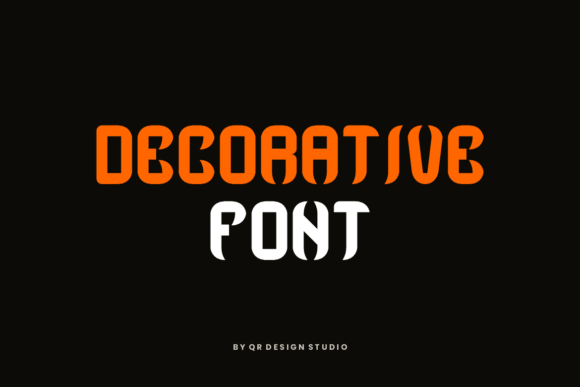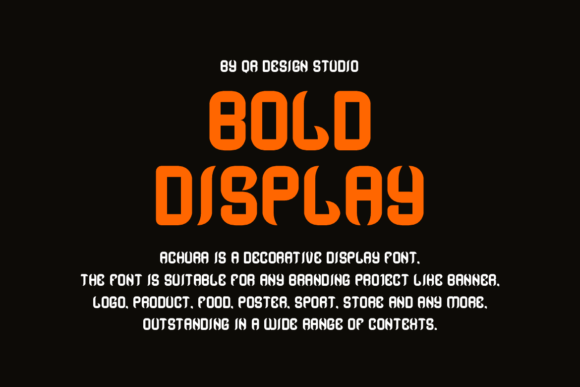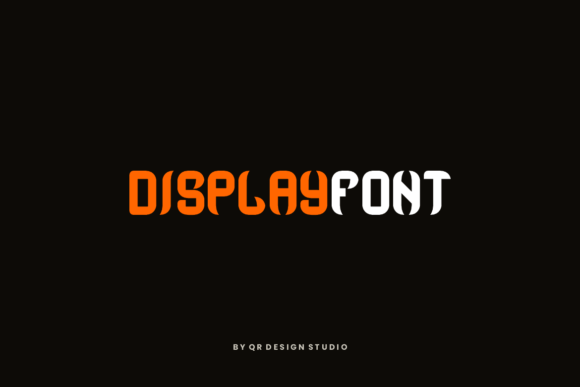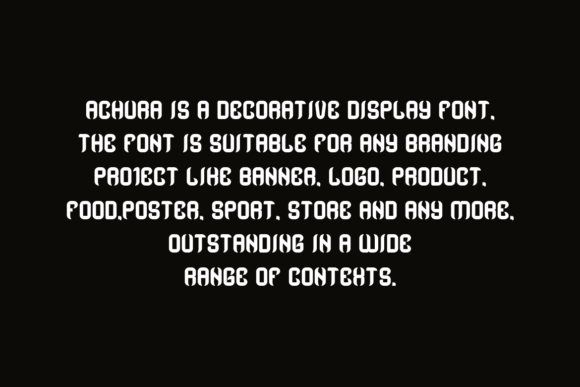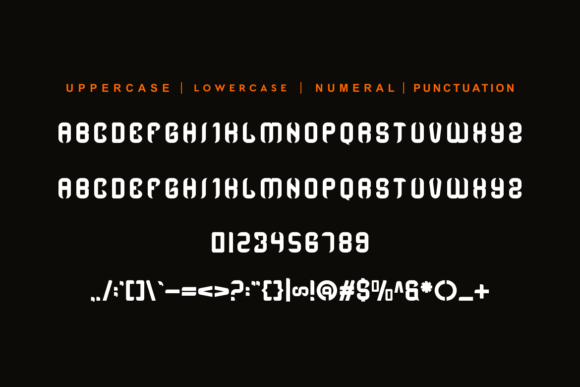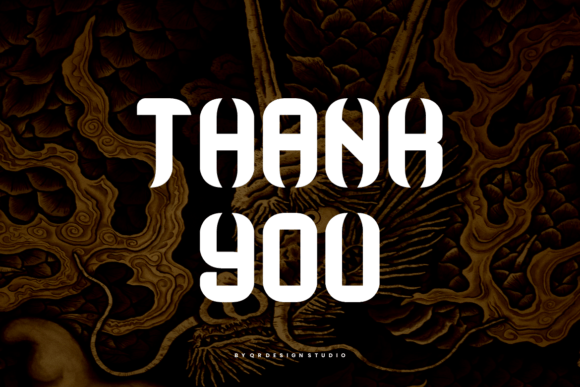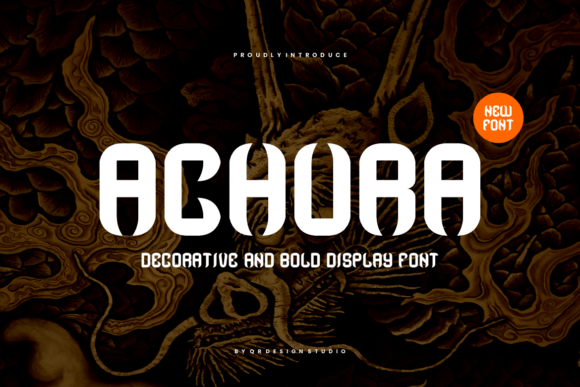
Achura Font: The Bold and Authentic Decorative Font for Your Branding Projects
In the world of typography, fonts play a crucial role in creating a lasting impression on the audience. When it comes to branding projects, a well-designed font can make all the difference. Achura Font is one such bold and authentic decorative font that has gained popularity among designers and crafters. In this article, we’ll explore the features and benefits of Achura Font and why it’s an excellent choice for your branding projects.
What is Achura Font?
Achura Font is a decorative font designed to add a touch of boldness and authenticity to your branding projects. Its unique and stylish design makes it perfect for creating logos, sport-related designs, and other visual elements that require a strong and impactful font. The font’s bold and authentic look is sure to grab attention and leave a lasting impression on your audience.
Key Features of Achura Font
- Bold and Authentic Design: Achura Font boasts a bold and authentic design that sets it apart from other fonts. Its unique style is perfect for creating eye-catching logos, titles, and headings.
- Suitable for Various Branding Projects: Achura Font is versatile and can be used for a wide range of branding projects, including logos, sports designs, and more.
- High-Quality Typography: The font features high-quality typography, ensuring that your designs look professional and polished.
- Easily Readable: Despite its bold design, Achura Font is easily readable, making it perfect for use in various contexts, from digital designs to print materials.
Benefits of Using Achura Font
Using Achura Font for your branding projects comes with several benefits. Here are a few:
- Stand Out from the Crowd: Achura Font’s unique design ensures that your branding projects stand out from the competition.
- Professional Look and Feel: The font’s high-quality typography and bold design give your designs a professional look and feel.
- Versatility: Achura Font can be used in various contexts, from digital designs to print materials, making it a versatile addition to your font collection.
- Time-Saving: With Achura Font, you can create stunning designs in no time, saving you time and effort.
Who Can Benefit from Achura Font?
Achura Font is perfect for:
- Graphic Designers: Graphic designers can use Achura Font to create stunning logos, brochures, and other visual elements for their clients.
- Crafters: Crafters can use Achura Font to add a personal touch to their craft projects, such as handmade cards, invitations, and more.
- Marketers: Marketers can use Achura Font to create eye-catching marketing materials, such as flyers, posters, and social media graphics.
- Small Business Owners: Small business owners can use Achura Font to create a strong brand identity and stand out from the competition.
How to Use Achura Font?
Using Achura Font is easy. Here are a few tips:
- Pair it with Other Fonts: Pair Achura Font with other fonts to create a unique and stylish design.
- Experiment with Colors: Experiment with different colors to find the perfect combination that suits your brand.
- Use it in Different Contexts: Use Achura Font in different contexts, from digital designs to print materials, to create a consistent brand identity.
Achura Font is a bold and authentic decorative font that’s perfect for branding projects. Its unique design, high-quality typography, and versatility make it an excellent choice for designers and crafters. Whether you’re looking to create a logo, sports design, or other visual elements, Achura Font is sure to make your designs stand out from the crowd.